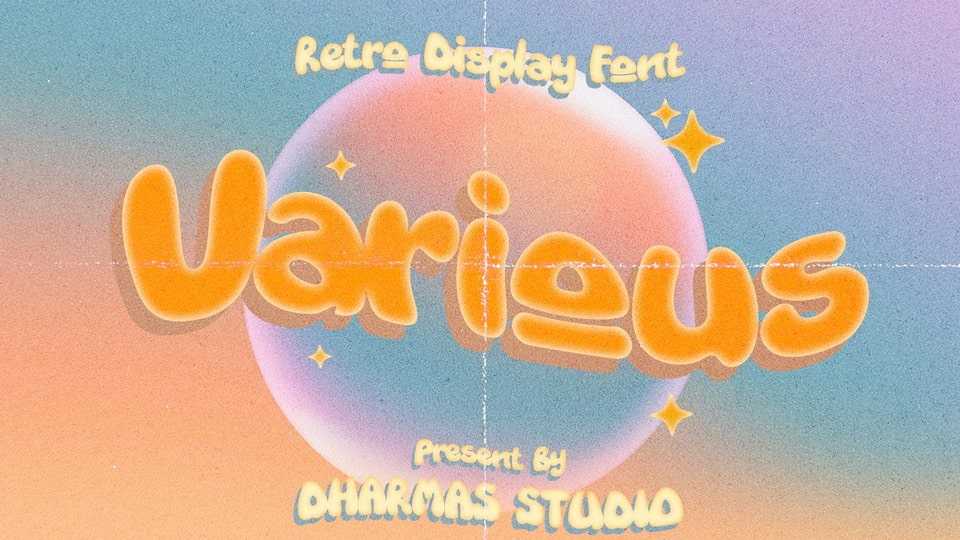
Download Various font, a completely unique and custom font with a 00s style, inspired by vintage and hand-painted retro signs. Various is a font with a delightful retro touch perfect for capturing the essence of the 60s, 70s, 80s, 90s, and even Y2K designs!